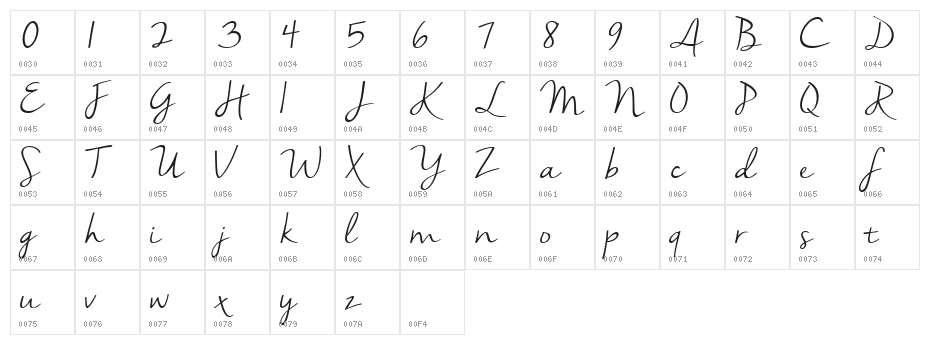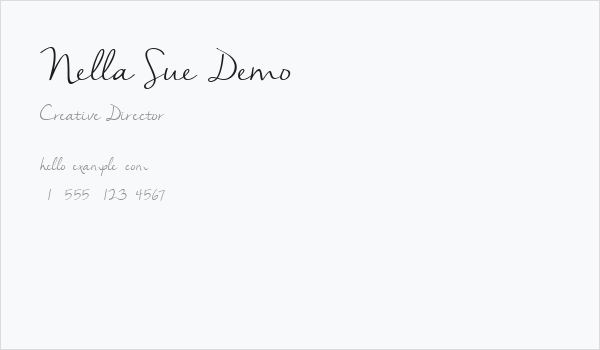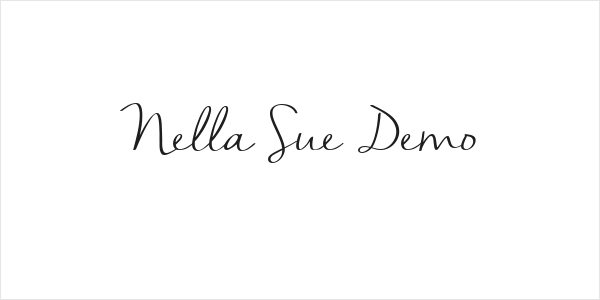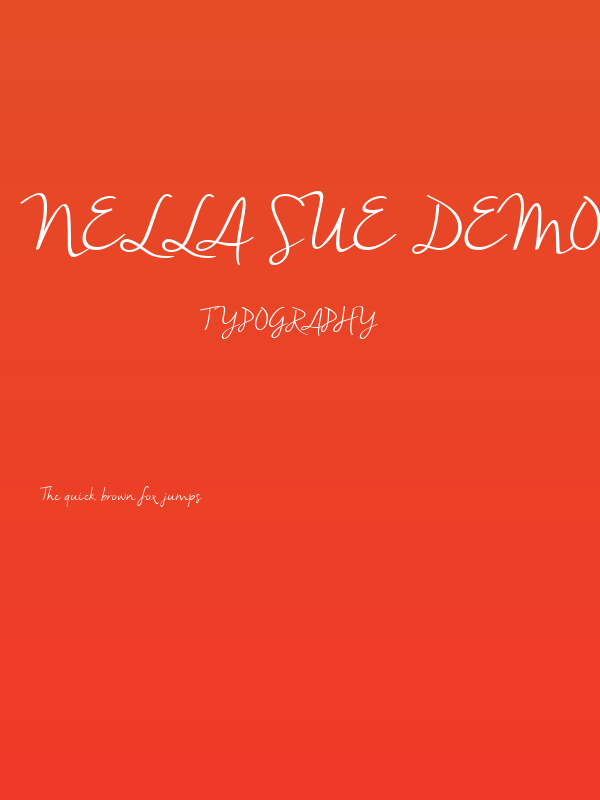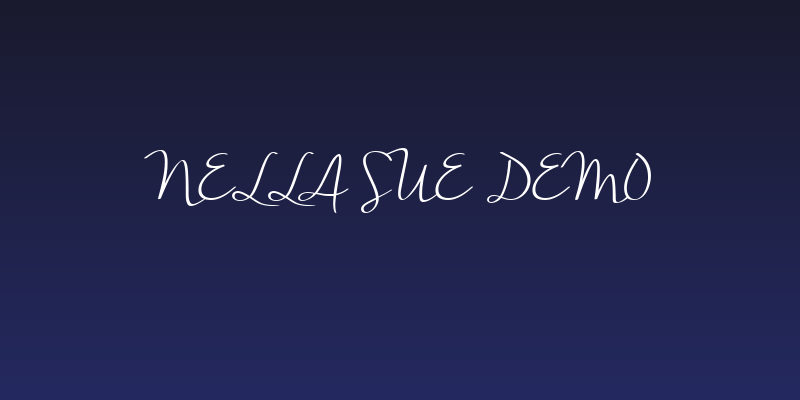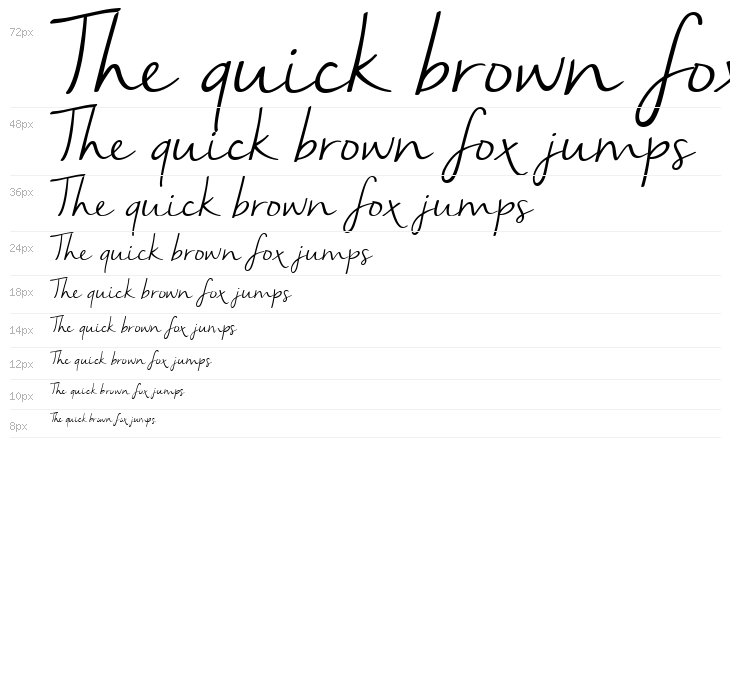
Nella Sue Demo Font
Nella Sue Demo Description
This font features a flowing, cursive style that mimics elegant handwriting. The uppercase letters are slightly more structured, maintaining a consistent height with gentle curves and loops, while the lowercase letters exhibit a more fluid and natural script. The numerals are clear and legible, maintaining the same cursive flair. The overall design is sophisticated and stylish, making it suitable for projects that require a personal touch. The characters are well-spaced, allowing for readability without sacrificing the aesthetic appeal. This font is ideal for invitations, greeting cards, and other creative projects where a handwritten look is desired.
Overall StyleElegant, Handwritten
Use CaseInvitations, Greeting cards, Personal branding
Proposed ProjectsIdeal for wedding invitations, greeting cards, personal branding, and creative projects requiring a handwritten touch.